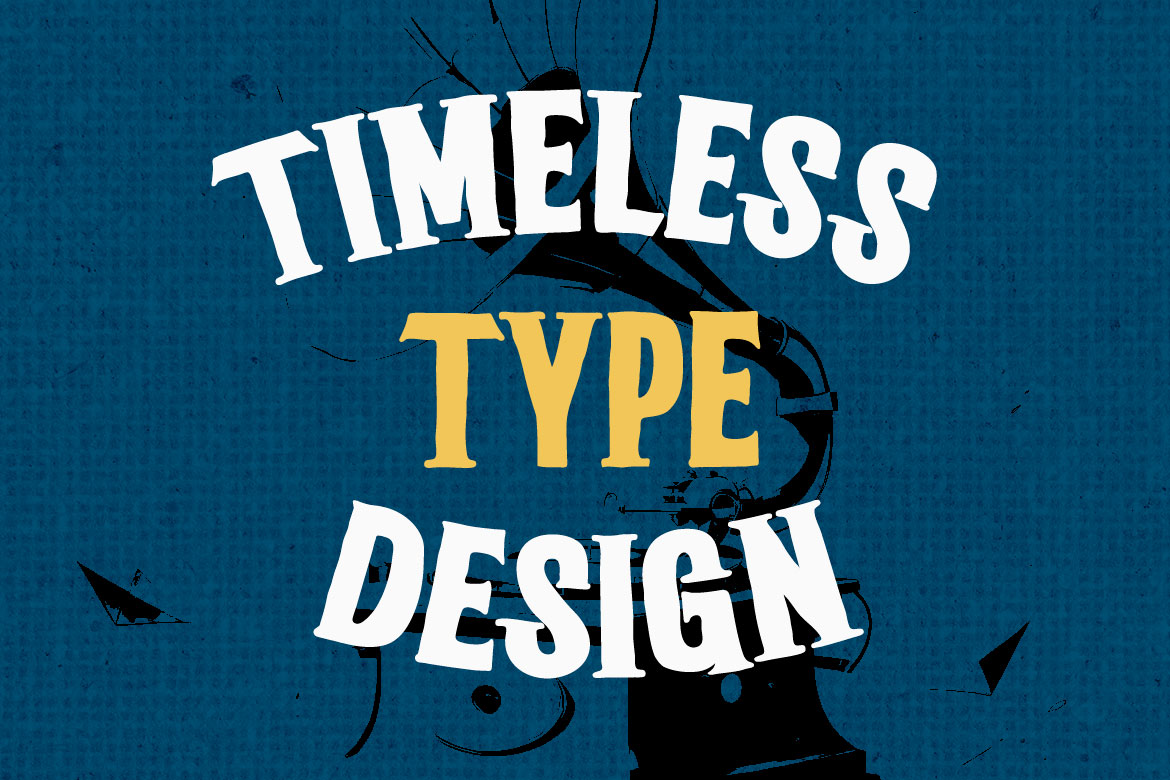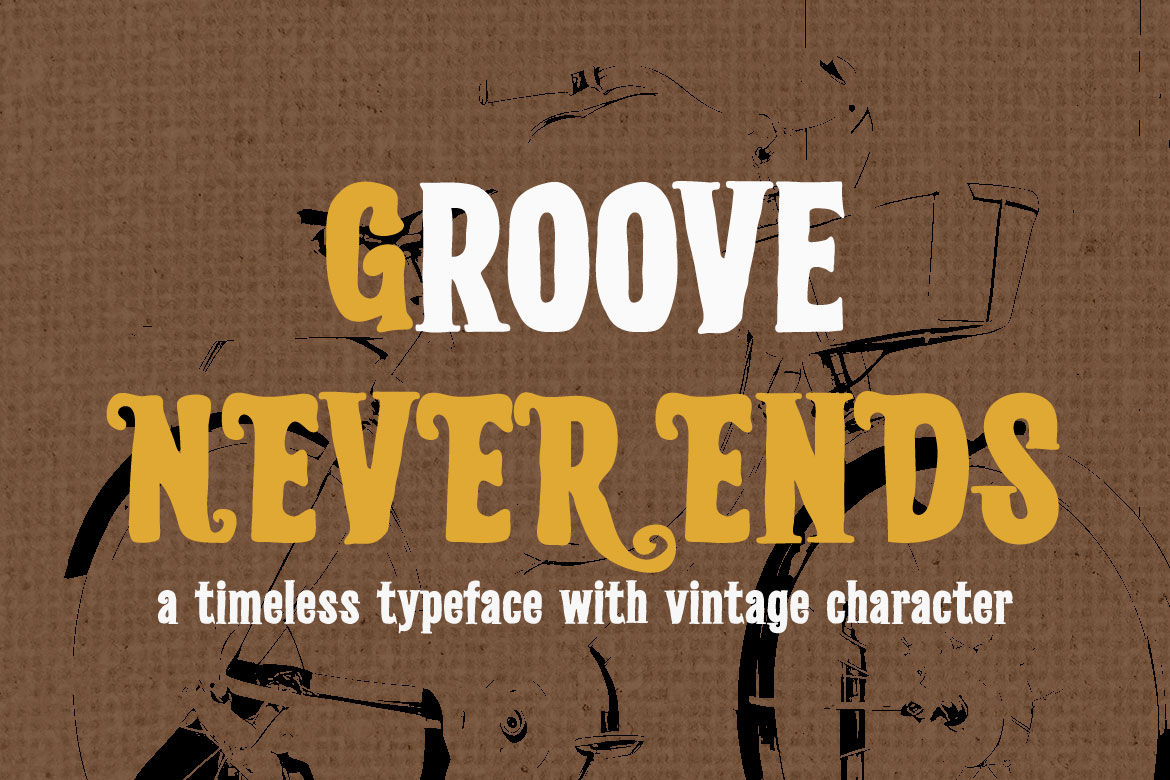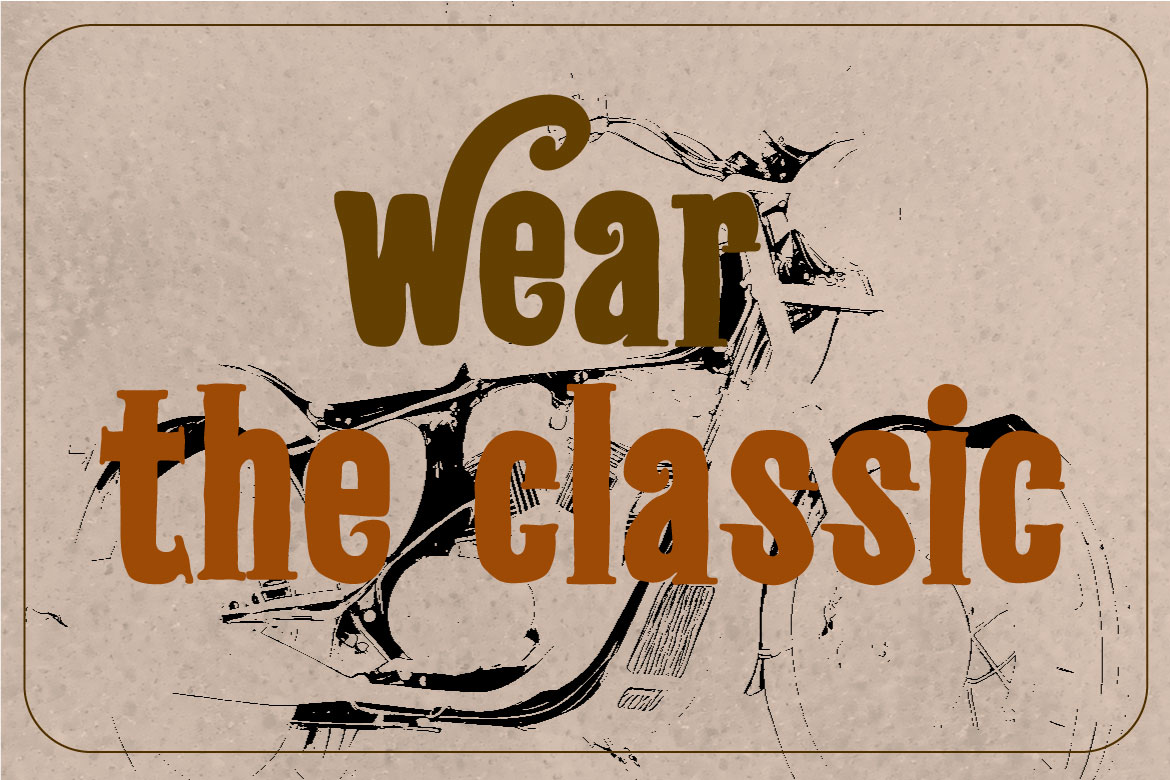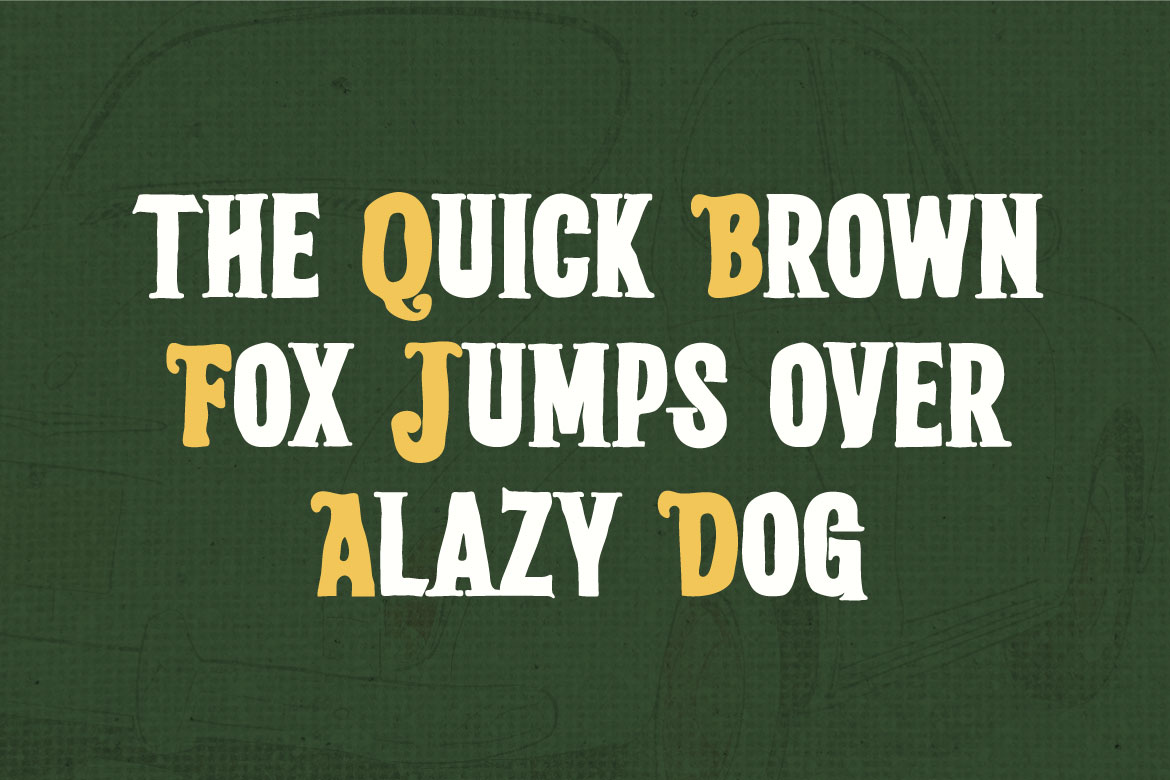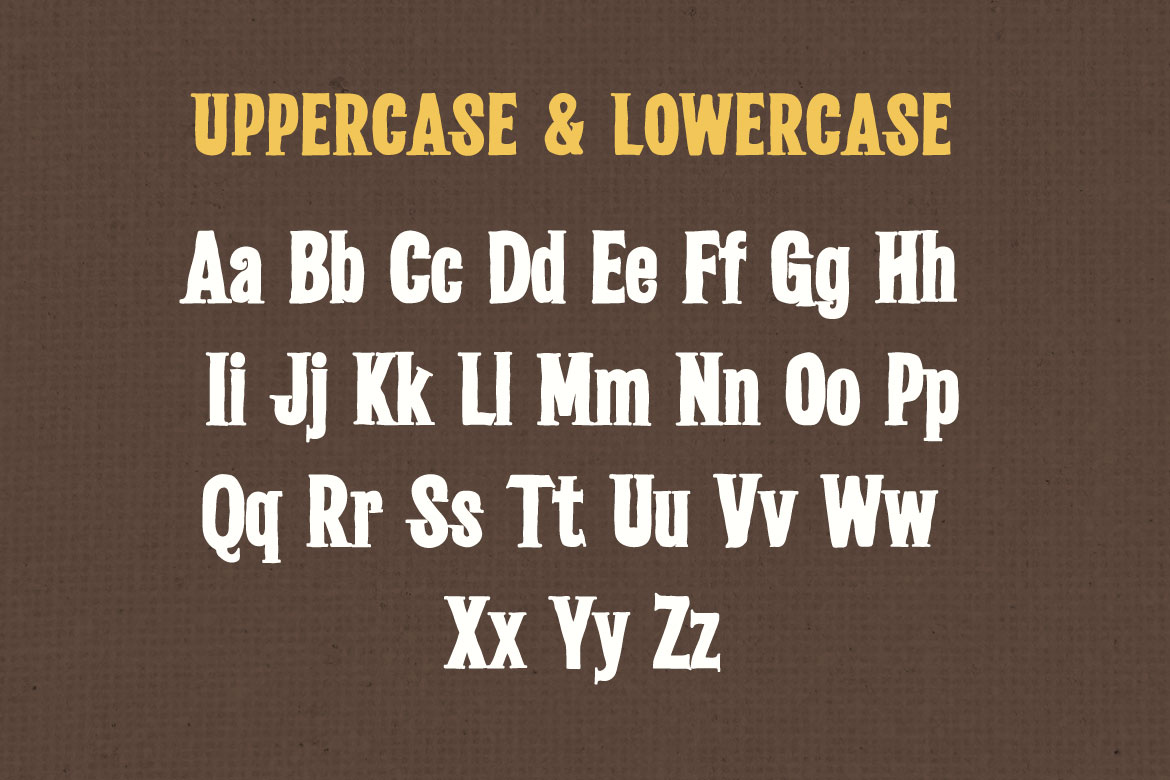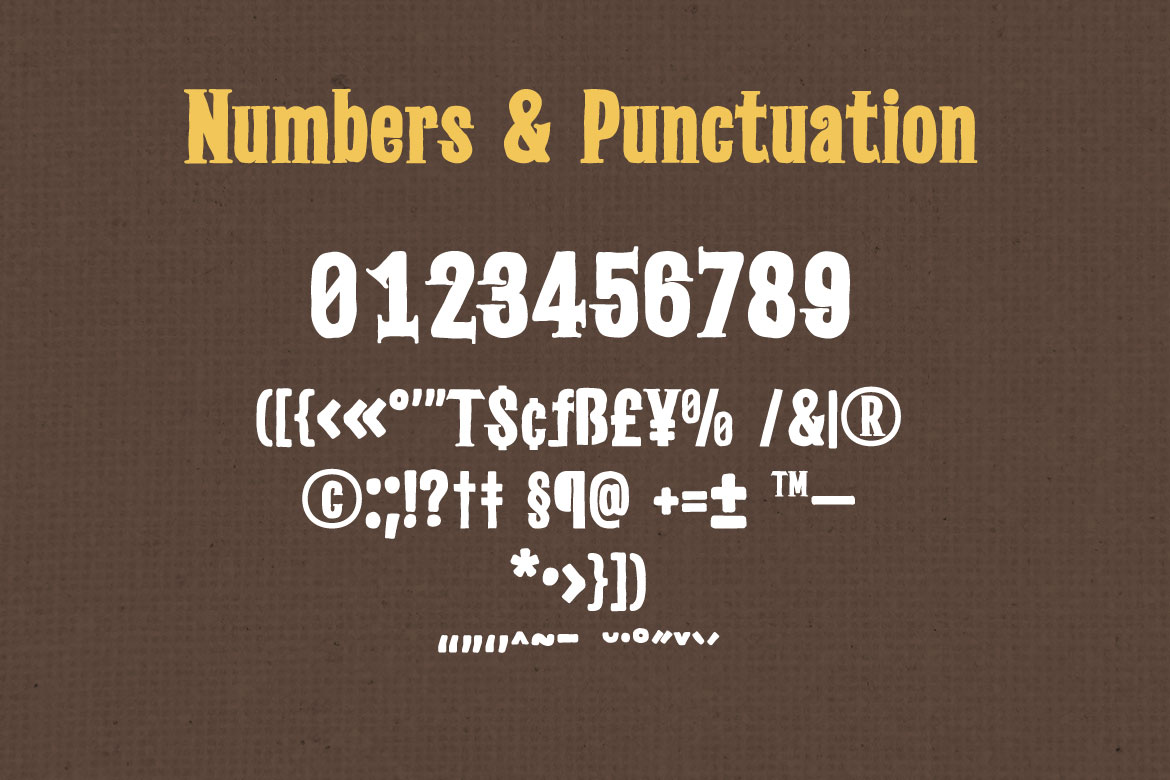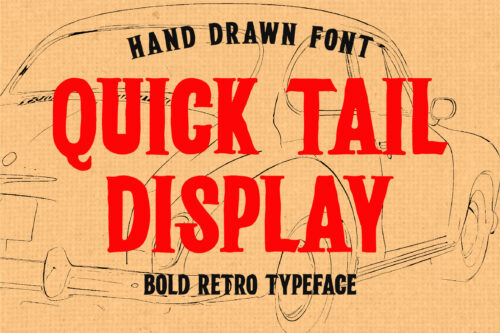
QuickTailDisplay is stylish bold retro Font with unique display serif font designed to bring character and stylish to your projects. Featuring alternates and ligatures, this typeface offers flexibility for creating distinctive typography styles. Ideal for branding, logos, posters, magazines, packaging, and print designs, QuickTailDisplay ensures a timeless yet modern look. With both regular and italic versions, this font is perfect for making a statement in high-end editorial, fashion, and stylish branding.